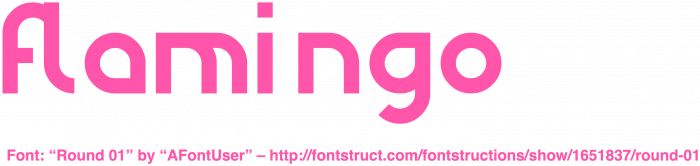
• Based on a sign reading "flamingo" at a safari on vacation.
All capital letters are alternatives to the original lowercase script I built.
This is the first font that I used kerning on.